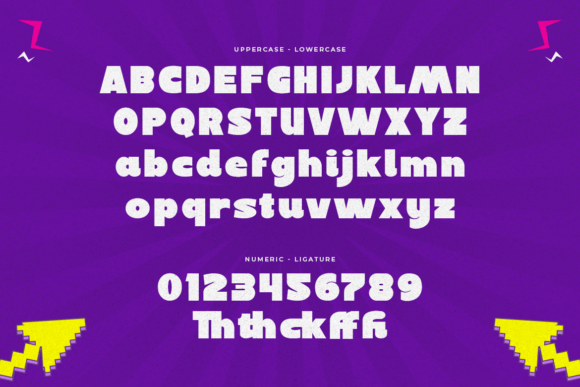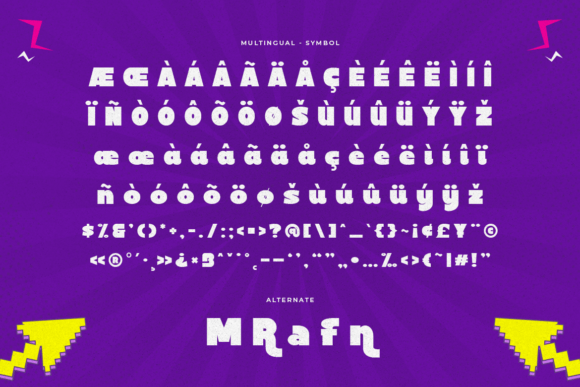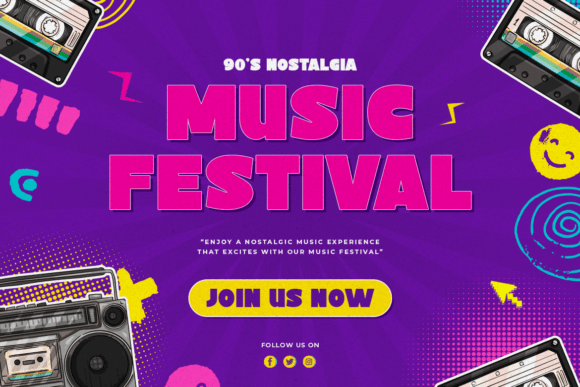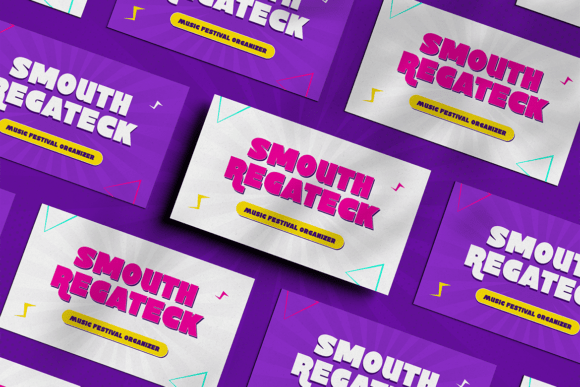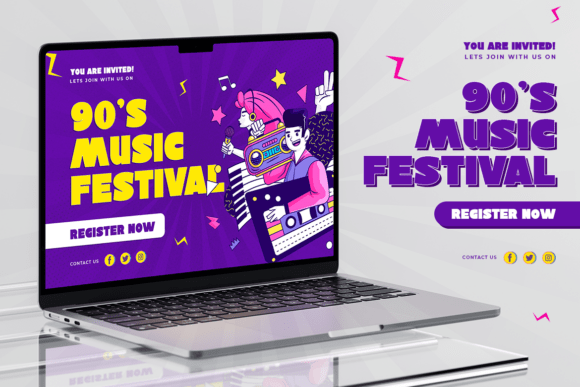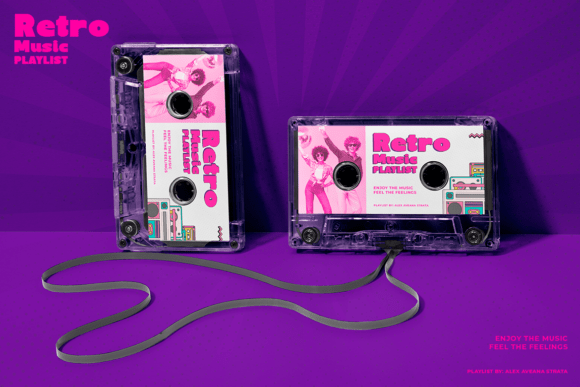
Introduction to Baffein Font
Baffein is a bold retro typeface that blends nostalgic style with striking confidence.
Inspired by vintage signage and classic 70s aesthetics, Baffein features thick, rounded characters and high visual impact Ideal for logos, headlines, posters, apparel, and packaging, this typeface gives your work a timeless retro flair with a modern edge.